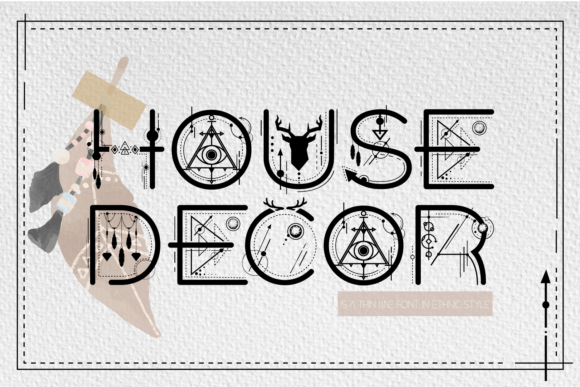
Introducing the House Decor Font - a stunning display font that's perfect for adding a touch of elegance to any project. Created by the talented team at 177Studio, this font family is adorned with intricate tribal patterns that are sure to catch the eye of anyone who sees it.
Whether you're looking to add a unique flair to your Christmas cards or want to create some stylish winter crafts for your home, House Decor Font is the perfect choice. With decorative, black, and light versions available, you have the flexibility to create designs that are as bold or as understated as you'd like.
The House Decor Font is not just any ordinary font - it's a font that's packed with emotion and creativity. The tribal patterns add a touch of personality to your designs, making them stand out from the crowd. This font is perfect for those who want to add a touch of elegance to their projects without sacrificing readability or legibility.